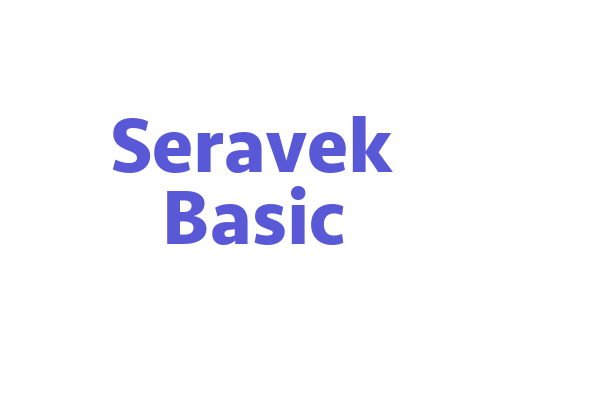
Seravek Basic Bold is a sleek and modern sans-serif font that belongs to the Basic category. With its clean lines and bold weight, this font is perfect for making a statement in headlines, logos, and branding materials. The designer of Seravek Basic is unknown, but its simplicity and versatility make it a popular choice for various design projects.